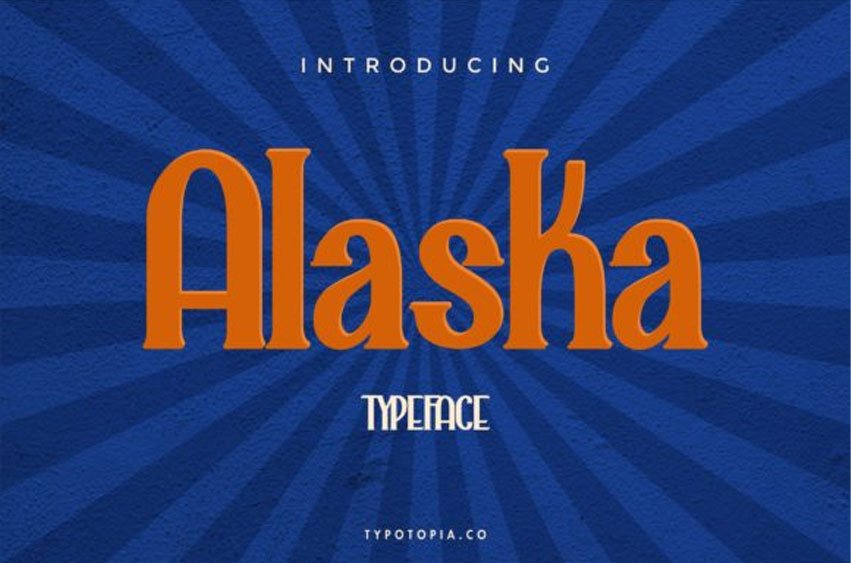
Alaska Typeface Font is a bold and authentic display font.
Masterfully designed to become a true favorite, this font has the potential to bring each of your creative ideas to the highest level!